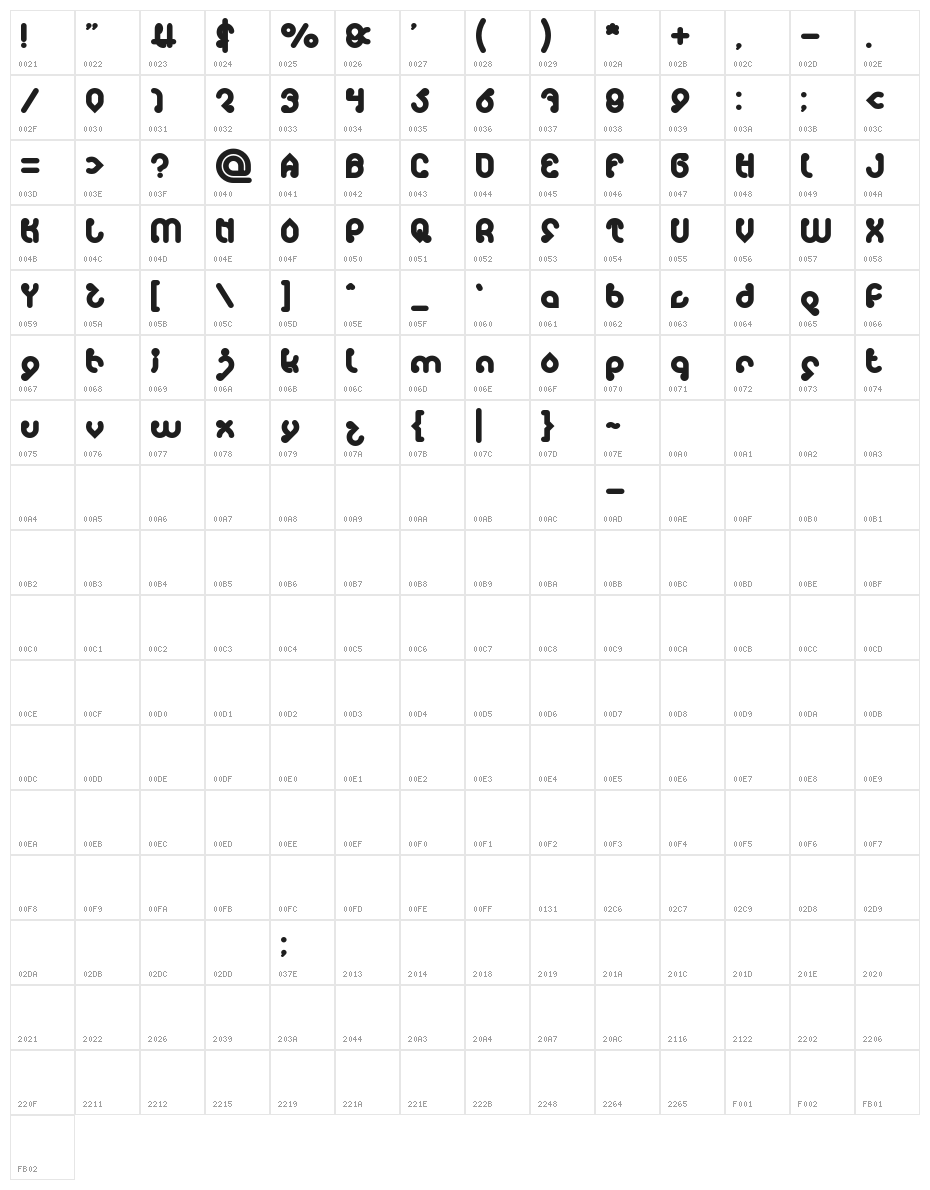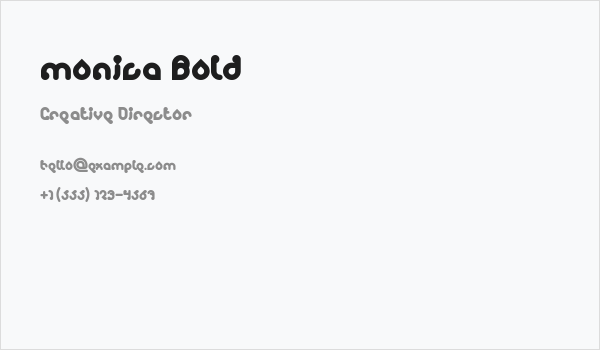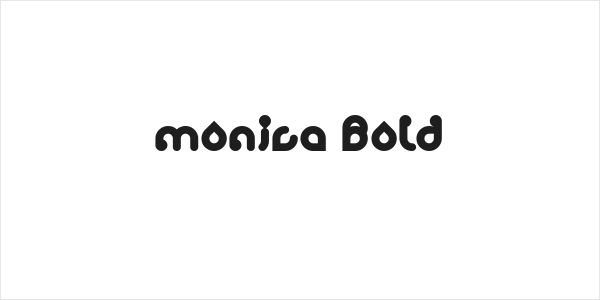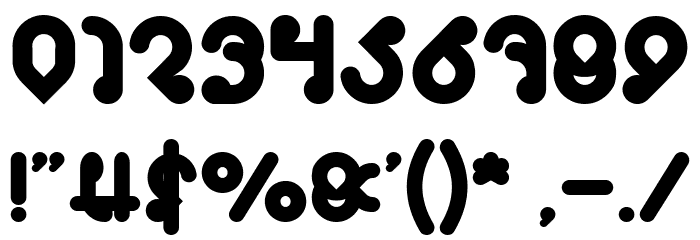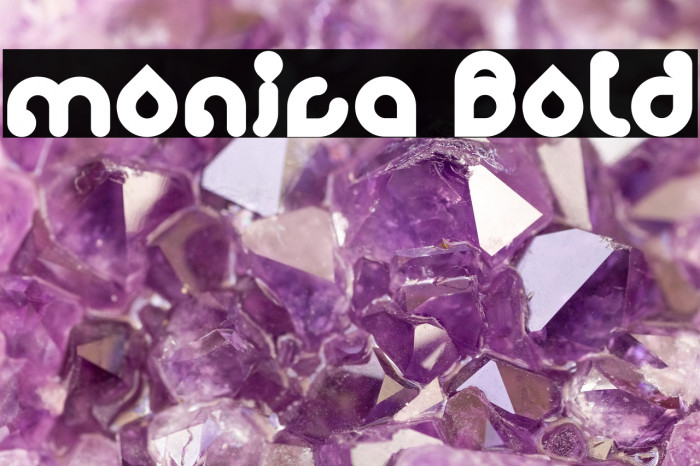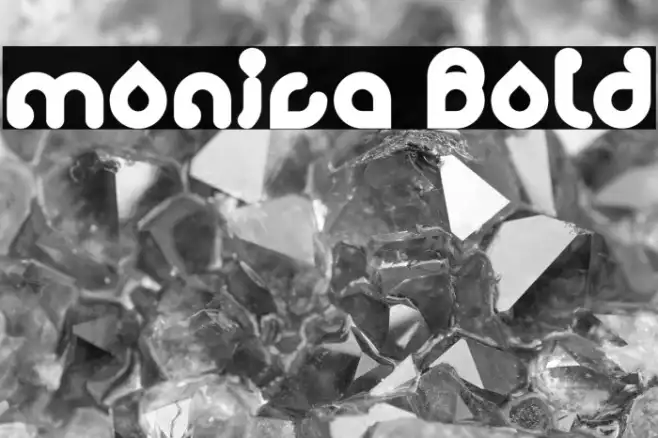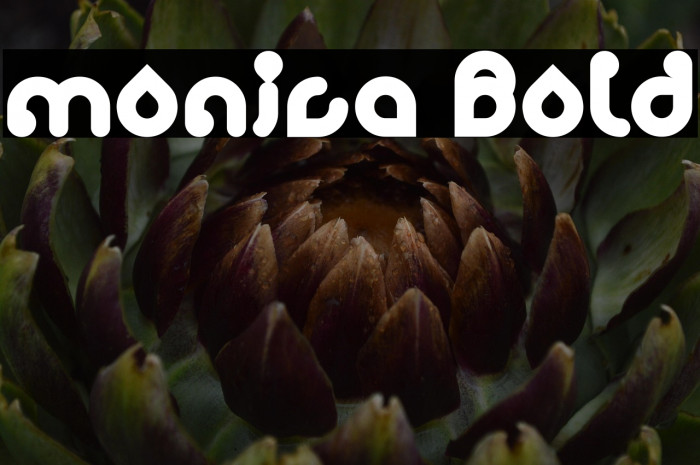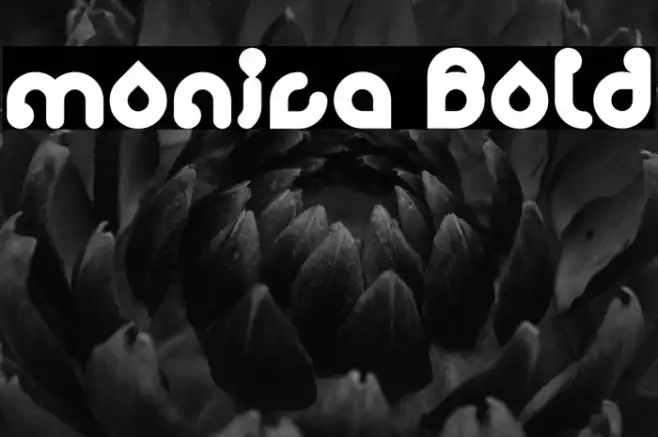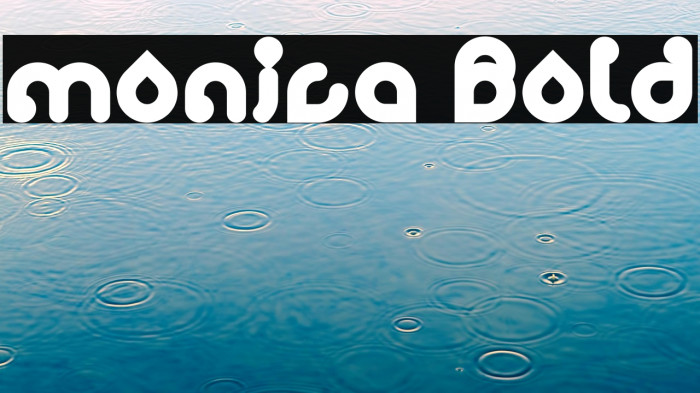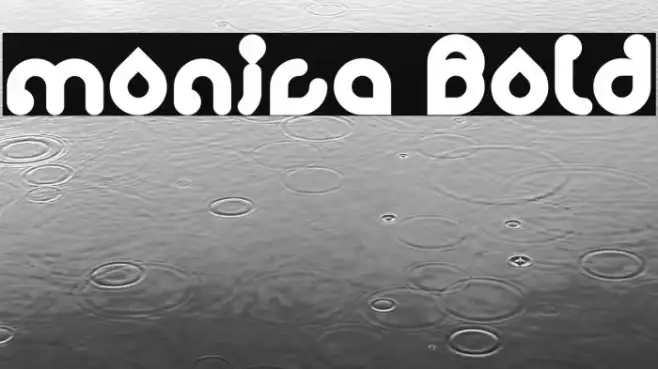
monica Bold Font
monica Bold Description
This font features a bold, rounded style with a playful and modern aesthetic. The characters are thick and uniform, with a consistent stroke width that gives it a strong presence. The rounded edges and smooth curves create a friendly and approachable look, making it suitable for a variety of design projects. The uppercase and lowercase letters maintain a cohesive style, while the numerals and special characters complement the overall design. This font's unique appearance makes it ideal for eye-catching headlines and creative branding.